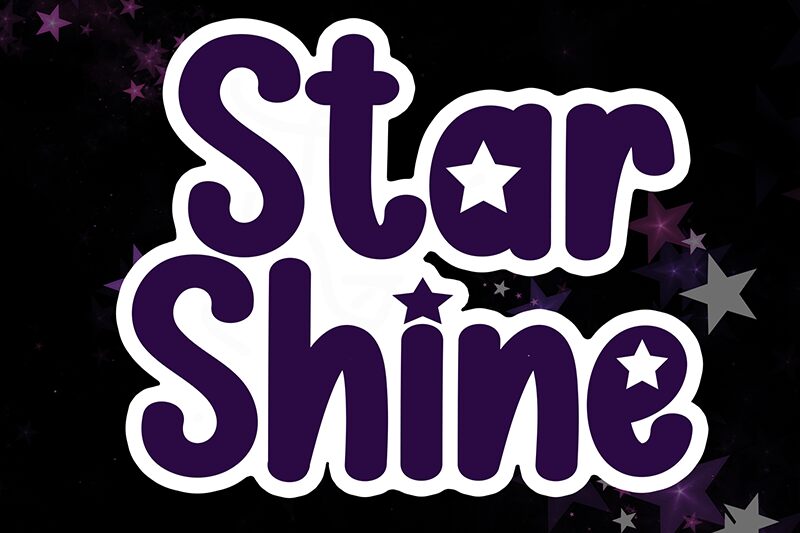
Star Shine
Star Shine font by Scratchones is a bold handwritten typeface defined by its casual and friendly feel. Whimsical and playful, it almost seems as if taken out from a greeting card that has wishes for the star of the party. Its rounded letter edges are what give it such warmth; it is subtle, delicate, and artistically attractive.